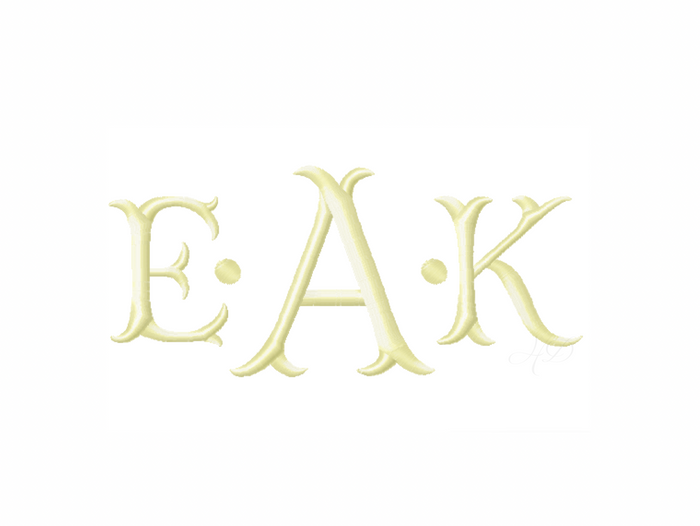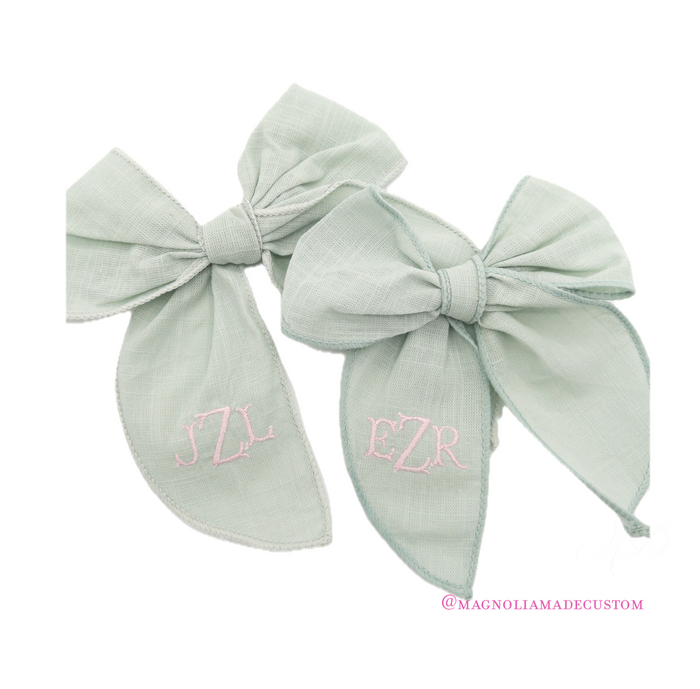
Large 4x4 Ashley Satin Embroidery Font for Monogramming
Enhance your sewing projects with the Large 4x4 Ashley Satin Embroidery Font, designed specifically for embroidery machine monogramming. This single-color satin stitch font includes uppercase letters A-Z and an accent dot for personalization.